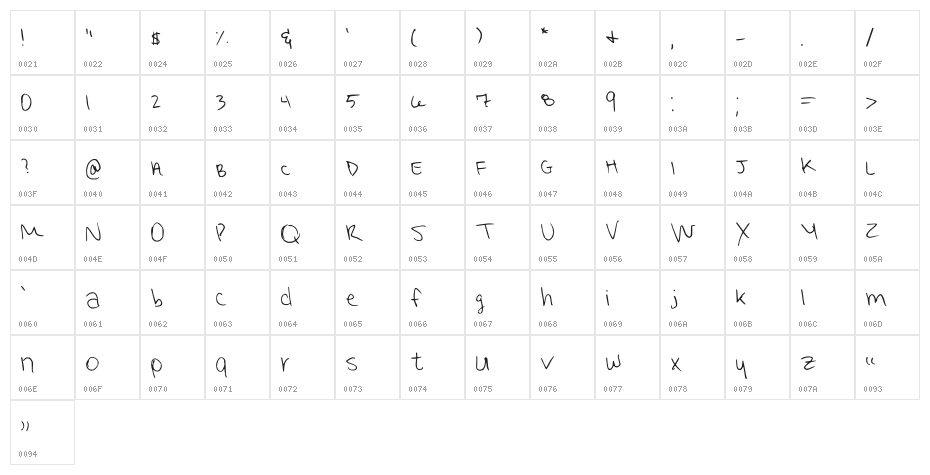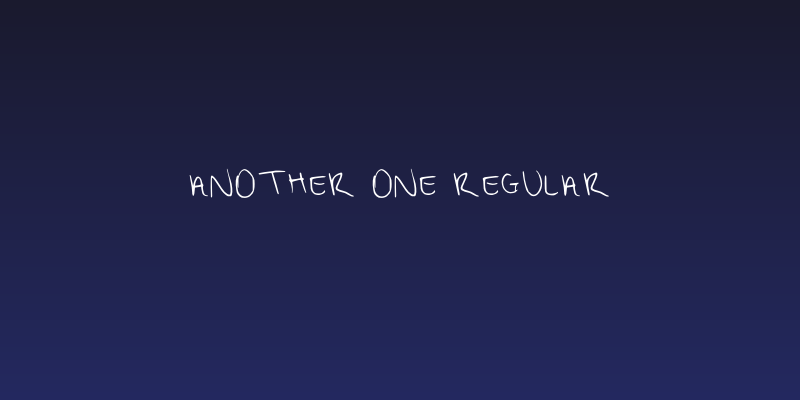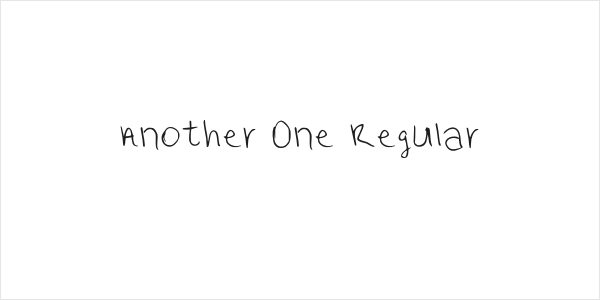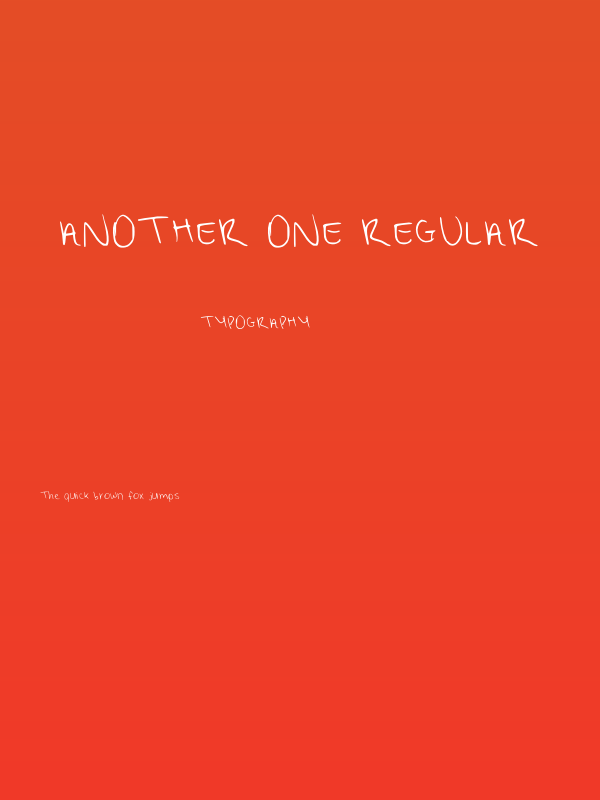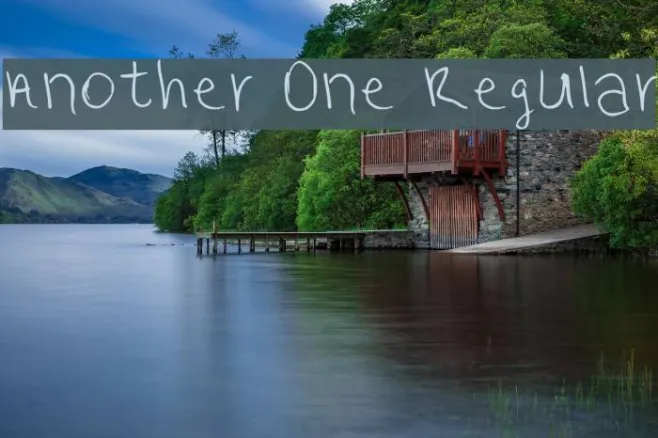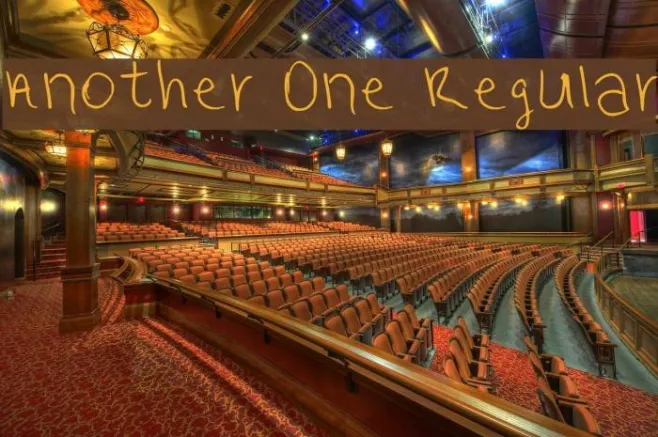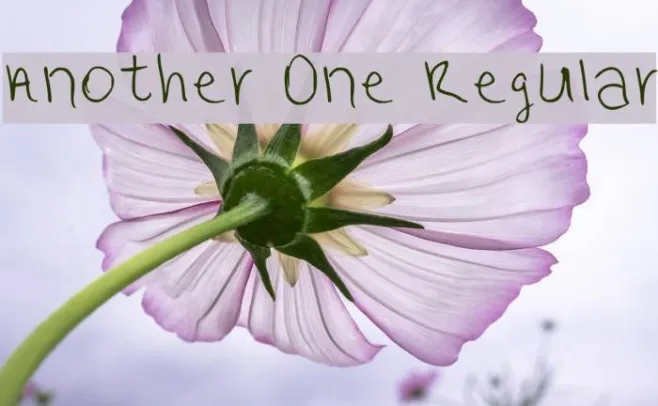
Another One Regular Font
Another One Regular Description
This font features a casual, handwritten style with a playful and informal appearance. The characters are slightly irregular, adding a personal touch that mimics natural handwriting. The uppercase and lowercase letters maintain a consistent flow, while the numerals and special characters complement the overall design. The strokes are smooth and slightly varied in thickness, giving the font a dynamic and lively feel. This font is versatile, suitable for projects that require a friendly and approachable aesthetic.
| Use Case | Headlines, Logos, Informal text |
| Proposed Projects | Ideal for greeting cards, personal blogs, informal invitations, and creative branding projects. |